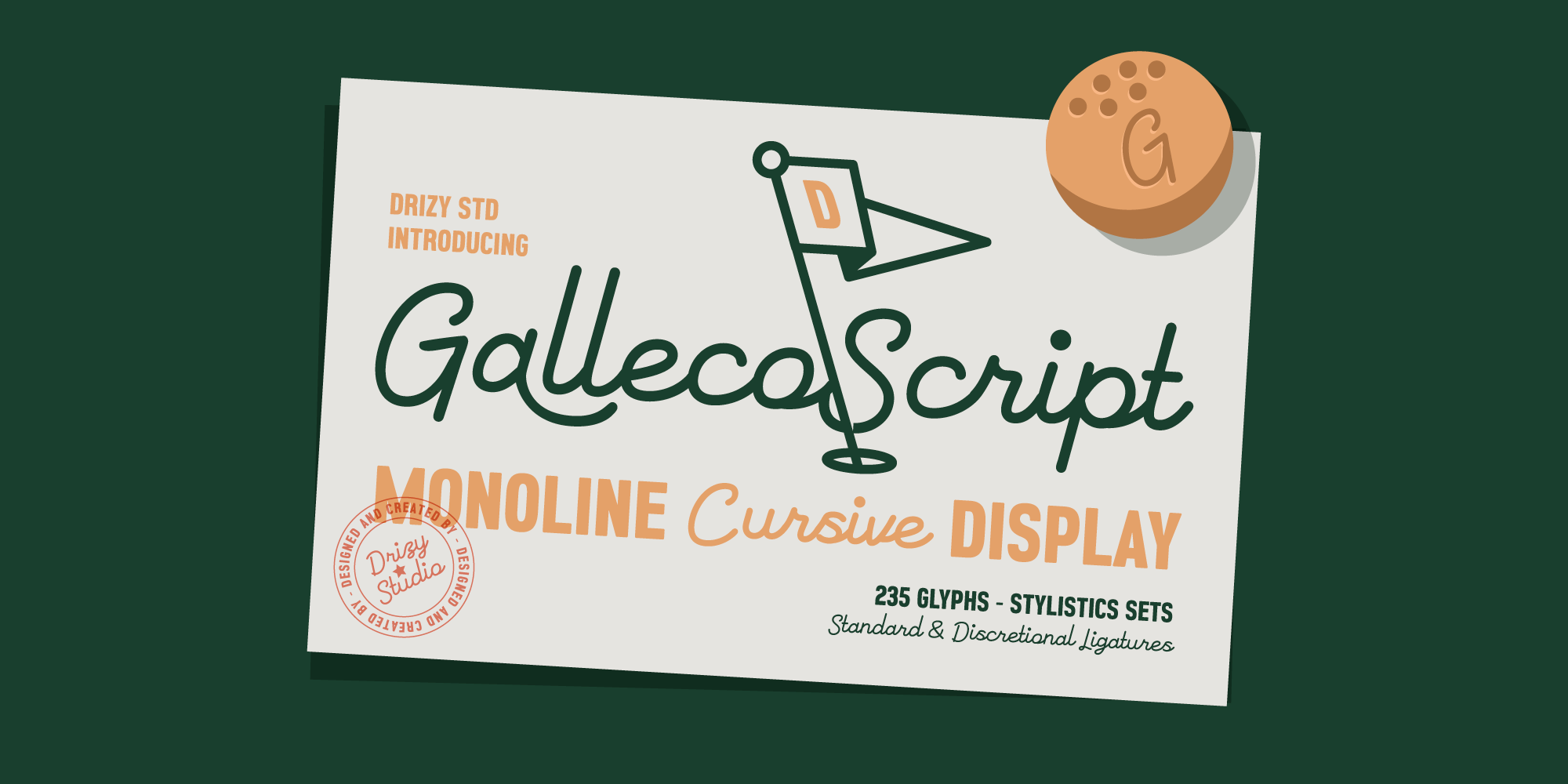
Galleco Script Font is perfect for Iberian restaurant branding, Spanish cultural center signage, flamenco dance studio logos, Mediterranean travel materials, artisan pottery packaging, and traditional Spanish celebration invitations.
Galleco Script Font is exciting because it captures the passionate artistry and cultural heritage of Galician traditions, delivering an expressive script typeface that embodies Spanish warmth, artistic flair, and the rhythmic beauty of Iberian culture.
The Galleco Script Font family includes passionate variations: Galleco Script Regular, Galleco Script Bold, flourishing alternates, and decorative elements inspired by Spanish calligraphy and traditional Galician manuscript lettering.
Celebrate Iberian heritage with Galleco Script Font Free Download, a passionately crafted typeface that brings Spanish cultural artistry and Mediterranean warmth to your most expressive design projects. This vibrant font excels in creating memorable branding for Spanish restaurants, flamenco performance venues, cultural exchange programs, and tourism organizations that celebrate the rich artistic heritage and passionate spirit of Galician and broader Spanish culture. The expressively designed letterforms feature flowing curves and rhythmic proportions reminiscent of traditional Spanish calligraphy and regional manuscript traditions that communicate cultural pride, artistic passion, and Mediterranean hospitality while ensuring beautiful readability across all cultural applications. Perfect for Spanish language schools, cultural festival materials, artisan craft promotions, and heritage tourism campaigns that need to evoke the warmth and artistic spirit of Spanish-speaking communities, this font connects with audiences who appreciate cultural diversity and artistic expression. Each character dances with cultural passion, making every Spanish-inspired message feel like a celebration of heritage that honors traditional artistry while welcoming people into the vibrant world of Iberian culture. Galleco Script Font transforms cultural communications into artistic expressions that celebrate Spanish heritage while building bridges between cultures through shared appreciation of artistic beauty and cultural traditions.